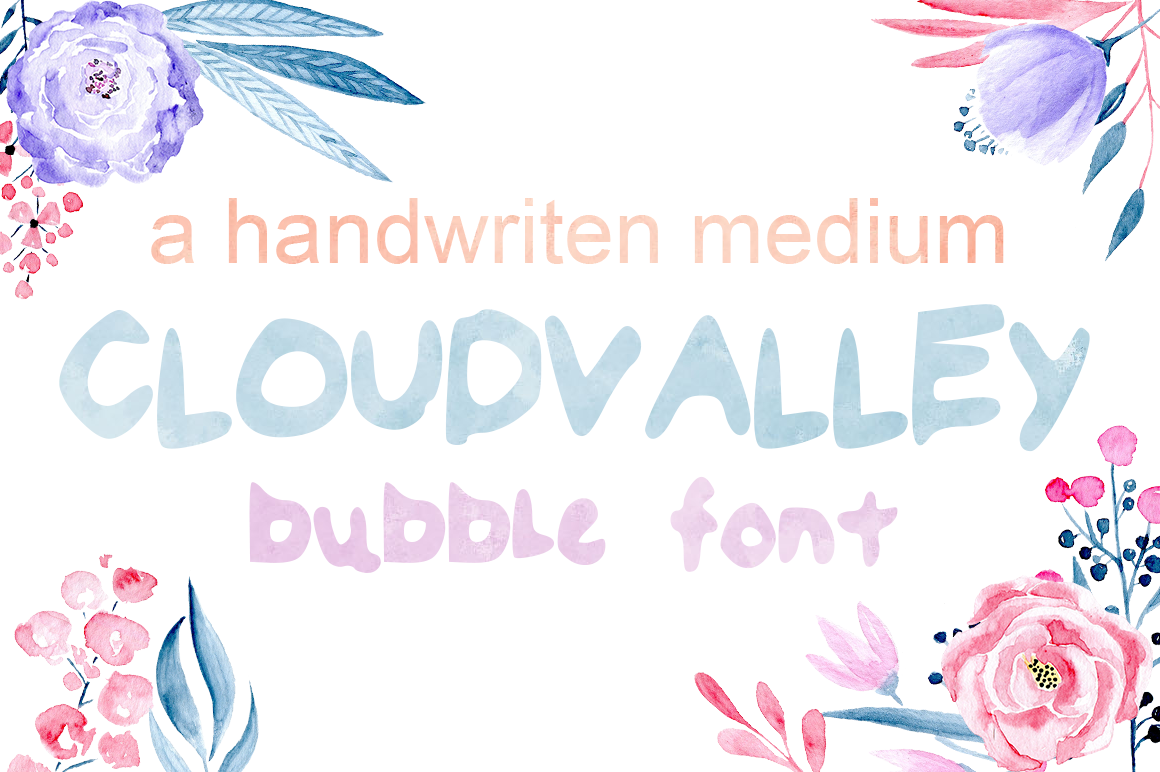
Cloud Valley Font Handwritten
Cute and messy handwritten bubble font with all uppercase and lowercase letters, and symbols.
Looks great with watercolors!